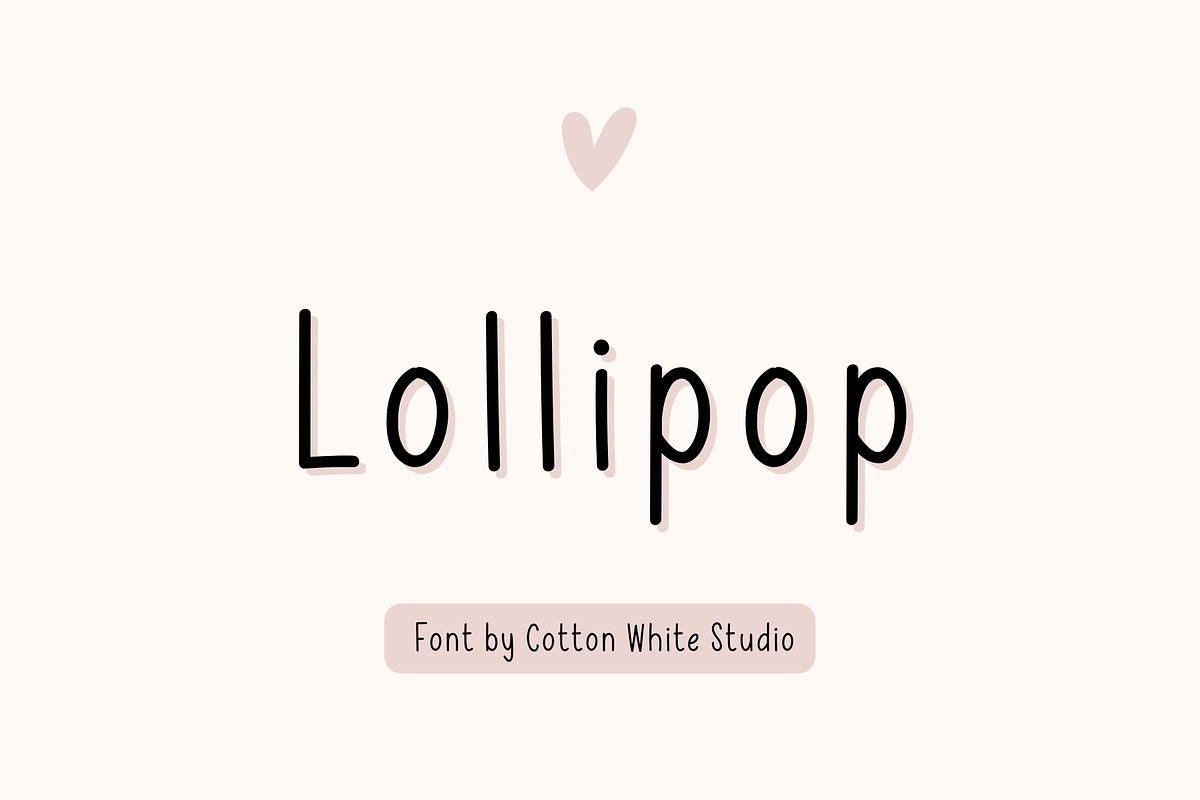
The Lollipop Font Free Download is a playful and fun typeface designed to bring joy and creativity to your projects. With its rounded, friendly letterforms, this font is perfect for designs targeting a youthful audience, such as children's books, posters, party invitations, and candy packaging. Its lighthearted style adds a touch of charm and whimsy to any creative work.
Lollipop Font Free Download is ideal for designers who need a cheerful and distinctive font for branding, social media posts, or any project that calls for a fun, approachable look. Download this delightful font today and add a sweet touch to your creative work!